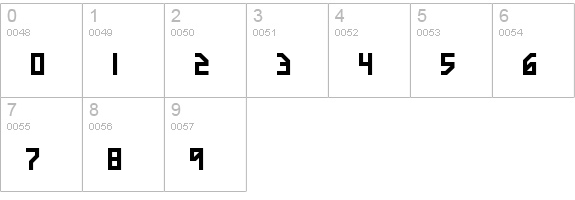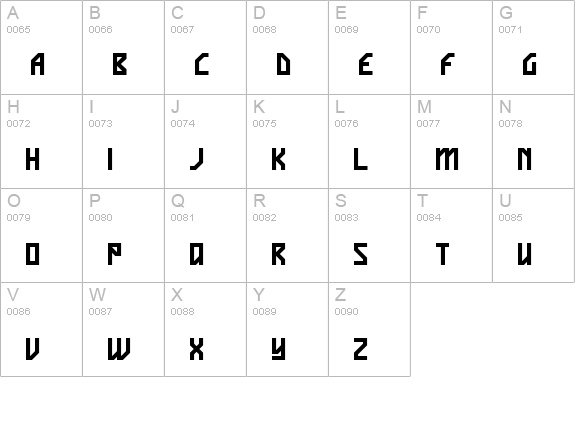
Vigilance BRK Font Details
Vigilance BRK font is a stunning and versatile typeface that will captivate you with its bold and dynamic presence. This font exudes an air of confidence and sophistication, making it perfect for a wide range of design projects. With its strong and sharp letterforms, Vigilance BRK font commands attention and ensures that your message is heard loud and clear. Its clean and crisp lines give it a modern and contemporary feel, while still maintaining a touch of elegance. One of the standout features of Vigilance BRK font is that it is freely available to download at FontsMarket.com. This means that you can easily access this exceptional font without any cost or hassle. Whether you are a professional designer or a novice enthusiast, this font opens up a world of possibilities for your creative endeavors. Vigilance BRK font is perfect for a variety of design applications, including logos, headlines, branding, posters, and more. Its versatility allows it to seamlessly adapt to different styles and contexts, making it a valuable asset in your font collection. The attention to detail in Vigilance BRK font is truly remarkable. Each letter is meticulously crafted to ensure a harmonious balance between form and function. Its legibility is excellent, even at smaller sizes, ensuring that your message is easily readable and understood. So, why wait? Take advantage of the opportunity to download Vigilance BRK font for free at FontsMarket.com. Enhance your designs with this exceptional typeface and let your creativity soar. Give your projects the attention they deserve and make a lasting impression with Vigilance BRK font.